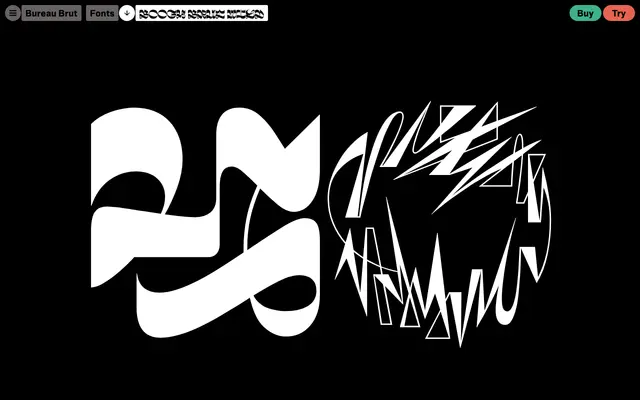
Boogy Brut Wild
An ornamental initials subfamily by Julien Priez and Yoann Minet, pushing calligraphic structure toward pure graphic art rather than conventional legibility.
Two styles, White and Black, make up the Wild subfamily of Boogy Brut, a family rooted in the calligraphic research of Julien Priez. Where the Poster and text subfamilies retain functional legibility, Wild is drawn in the tradition of decorative initials, sitting at the boundary between type design and autonomous graphic work. Its sharply modelled forms strip away handmade imperfections to produce a contemporary digital object rather than a historical revival.
Boogy Brut Wild is positioned as an ornamental initials-style subfamily within a calligraphy-rooted family, designed explicitly to push beyond legibility toward graphic and artistic expression, placing it firmly in display territory.